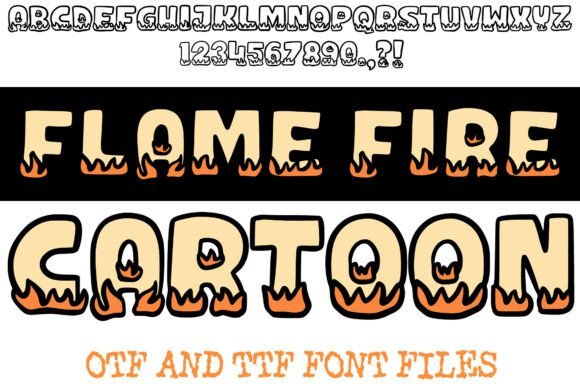
Ignite Your Designs with Flame Fire Cartoon Font
Remember the excitement of drawing animated flames as a kid, bringing your imagination to life with every scribble of the pen? That same sense of creativity and playfulness is exactly what Flame Fire Cartoon Font embodies. This vibrant typeface is designed to capture the dynamic energy of melting heat and animated flames, perfect for adding a burst of whimsical intensity to any project.
As a designer, you’re always on the lookout for the perfect font to bring your vision to life. Flame Fire Cartoon Font is more than just a font – it’s a powerful tool that can elevate your designs, from children’s games to hot sauce labels. Its unique, fluid effect makes it an ideal choice for any project that needs a touch of cartoon charm and heated enthusiasm.
Key Features of Flame Fire Cartoon Font
- Unique Characteristics: Distressed, fiery, and cartoon-inspired design elements, giving it a playful and energetic feel.
- Style Options: Available in regular and bold weights, providing flexibility for designers to choose the perfect style for their project.
Flame Fire Cartoon Font Review
I recently had the chance to work with the Flame Fire Cartoon Font, and I must say, it’s a mixed bag. ✨ Here are some things that work well:
- The font’s playful and whimsical feel is perfect for children’s books, cartoons, and other projects that require a lighthearted tone.
- The font’s bold lines and vibrant colors make it easy to read, even at smaller font sizes.
- The font’s versatility allows it to be used in a variety of contexts, from digital screens to print materials.
- ⚠️ The font’s cartoonish style may not be suitable for more formal or professional projects, such as business reports or academic papers.
- ⚠️ The font’s bold lines can sometimes make it difficult to achieve a smooth, seamless look when using it with complex graphics or illustrations.
Overall, I’d say that the Flame Fire Cartoon Font is a solid choice for projects that require a playful, eye-catching look. However, it may not be the best fit for every project, and users should be aware of its limitations before using it.
Tip: Use the Flame Fire Cartoon Font for titles and headings to add a playful touch to your design.
Tip: Use the Flame Fire Cartoon Font for text overlays or as a design element in your illustrations.
Tip: Use the Flame Fire Cartoon Font for titles, headings, or as a design element in your presentations.
The Flame Fire Cartoon Font is perfect for:
- Designing children’s books or educational materials.
- Creating playful and eye-catching social media graphics.
- Adding a whimsical touch to your branding or marketing materials.